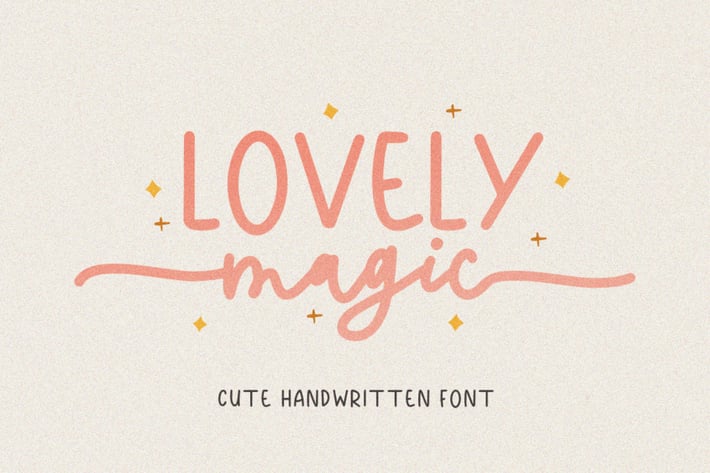
Lovely Magic - Cute Handwritten Font
Lovely Magic is a cute handwritten font that you can get script and sans in one font. You can use this font for any purposes especially quotes, book cover, and suitable children design. With special swash in initial and terminal, this font will make your project more interesting.